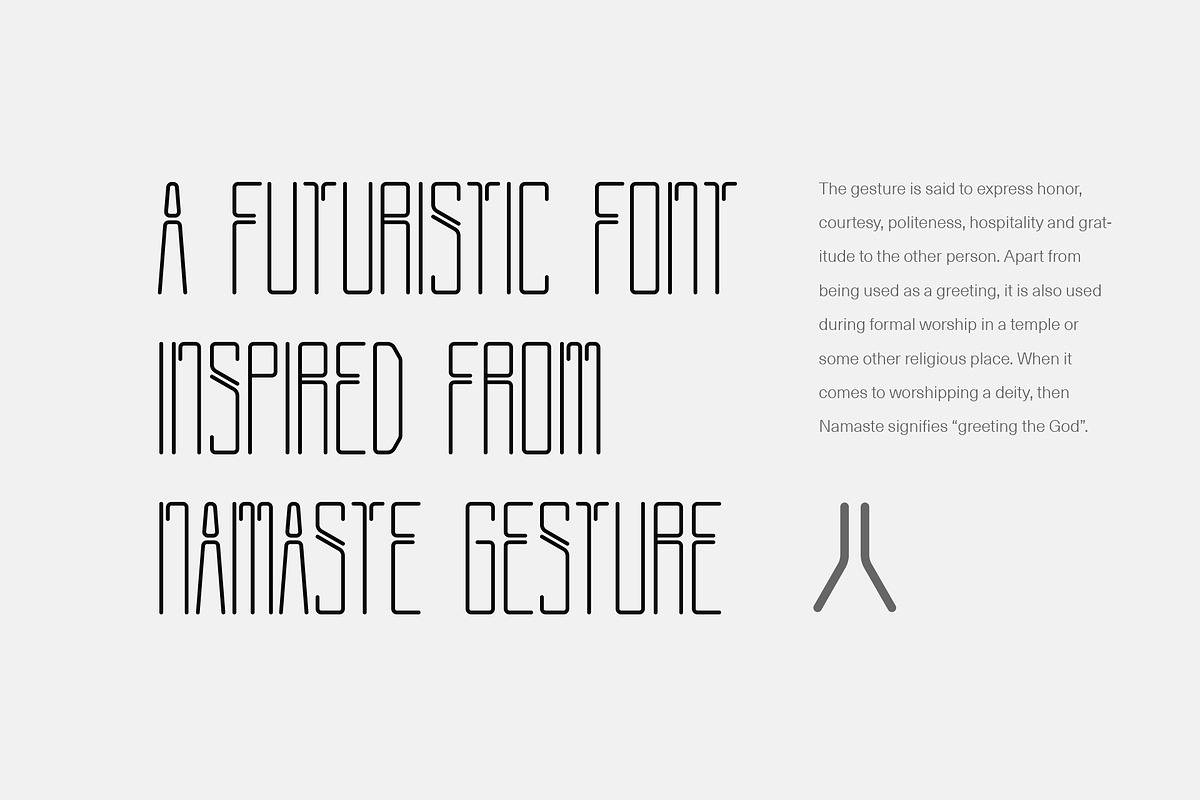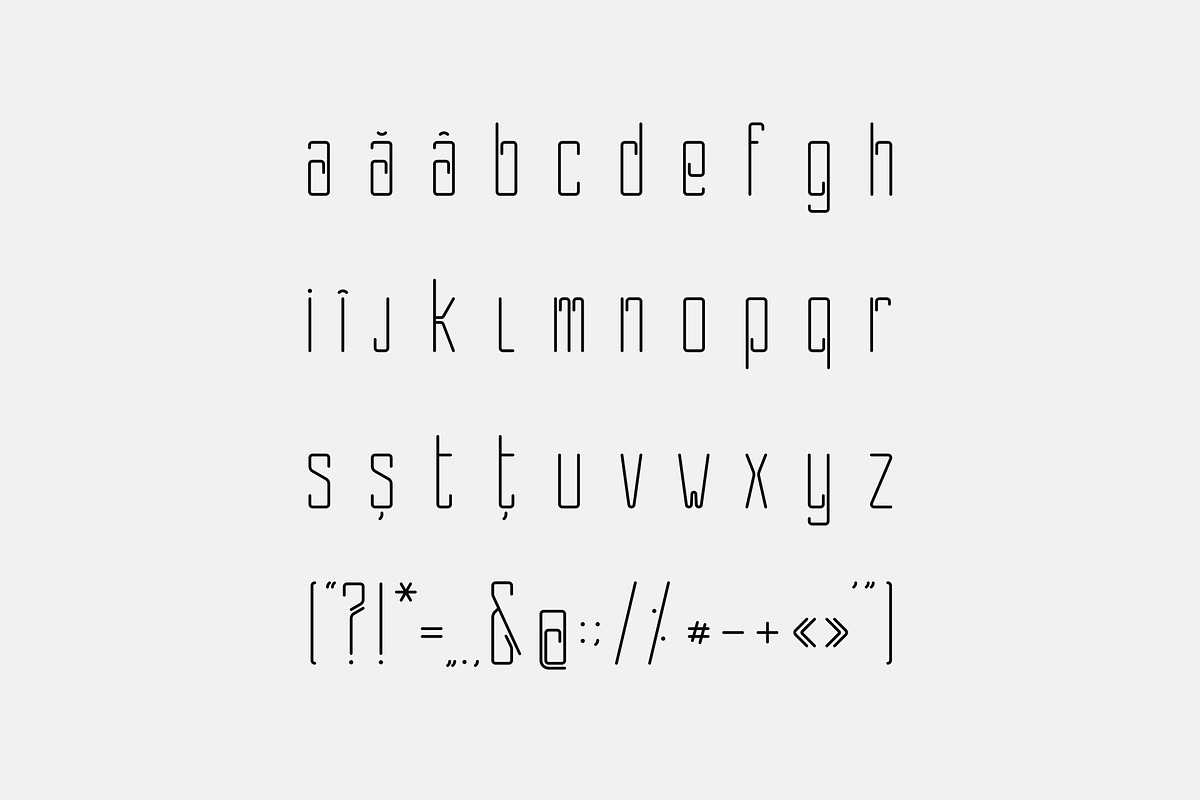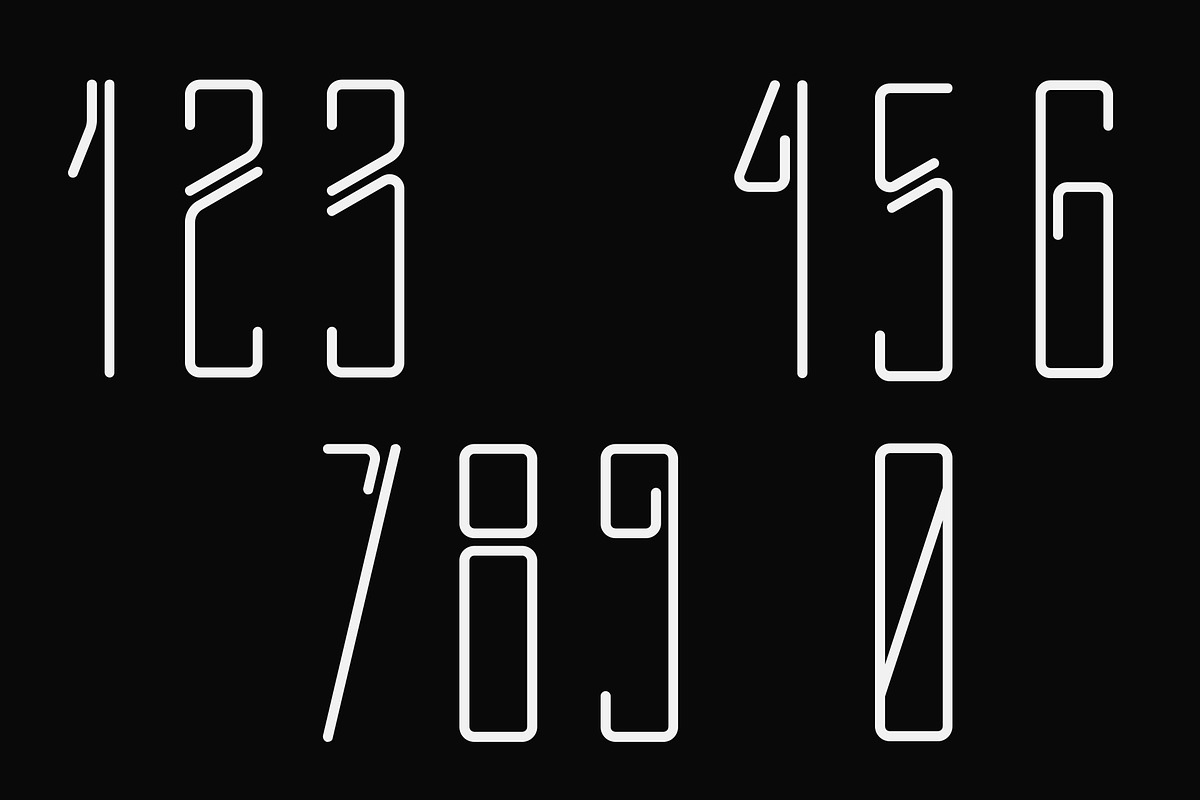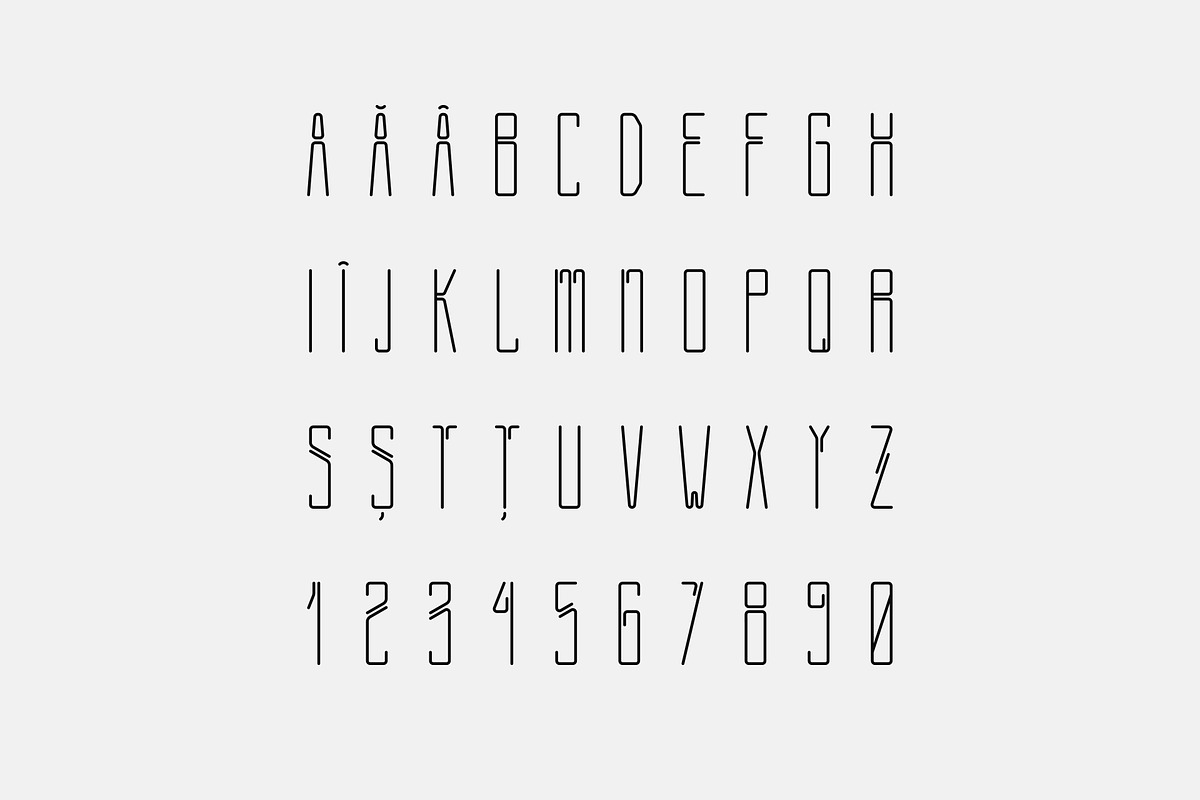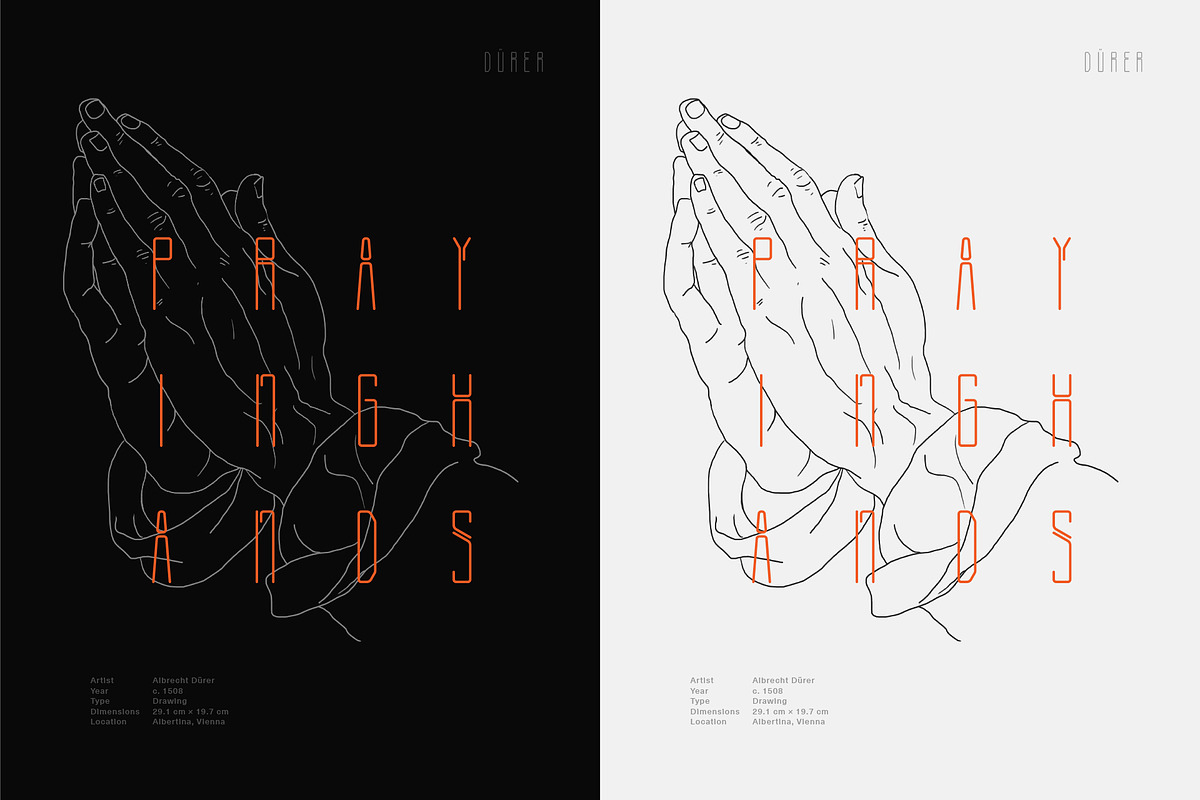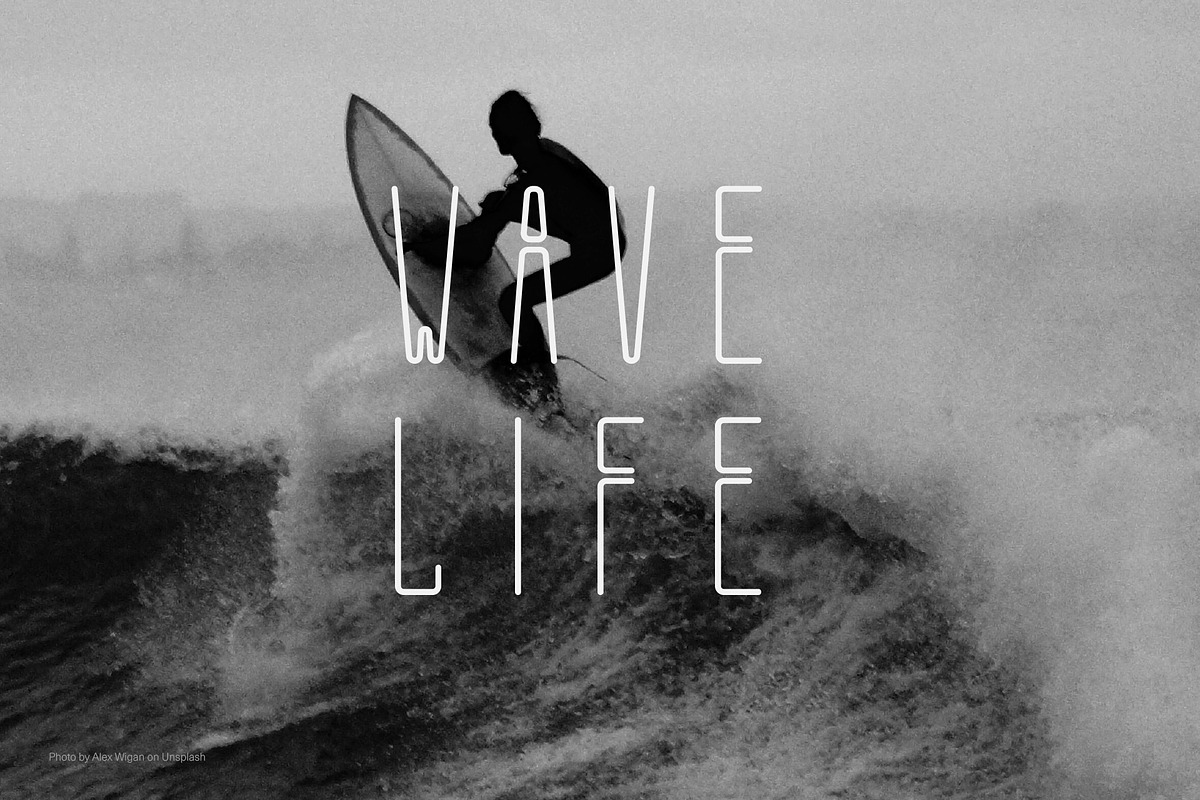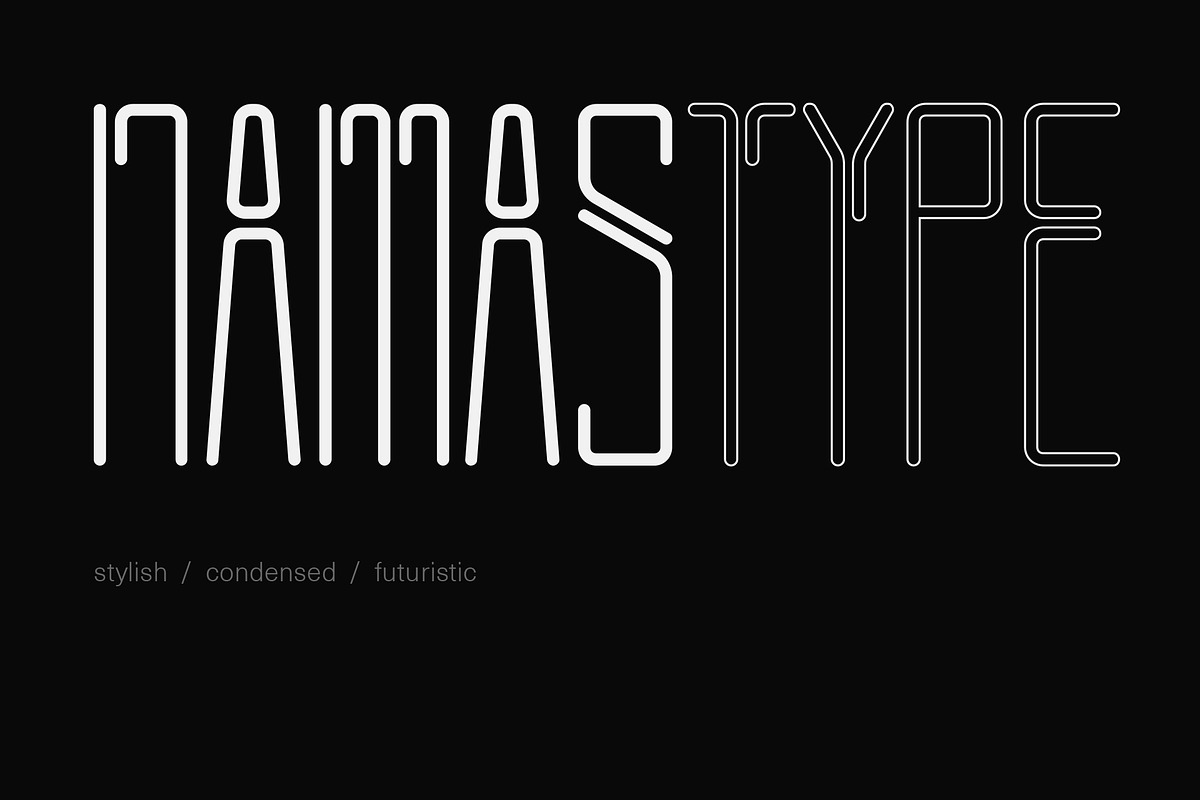
Namas Typeface
Namas is an experimental typeface.
Is perfect for corporate identity, logotype, headline text and captions, posters, music, titles, magazines, books, and entertainment. There are 2 variations of typeface, raw & clean, each contains all main lowercase and uppercase letters, numbers, and punctuation.
- There are 2 variations of typeface, raw & clean, each contains all main lowercase and uppercase letters, numbers, and punctuation.
- Character set A-Z
- Numerals & Punctuation
- Romanian diacritics